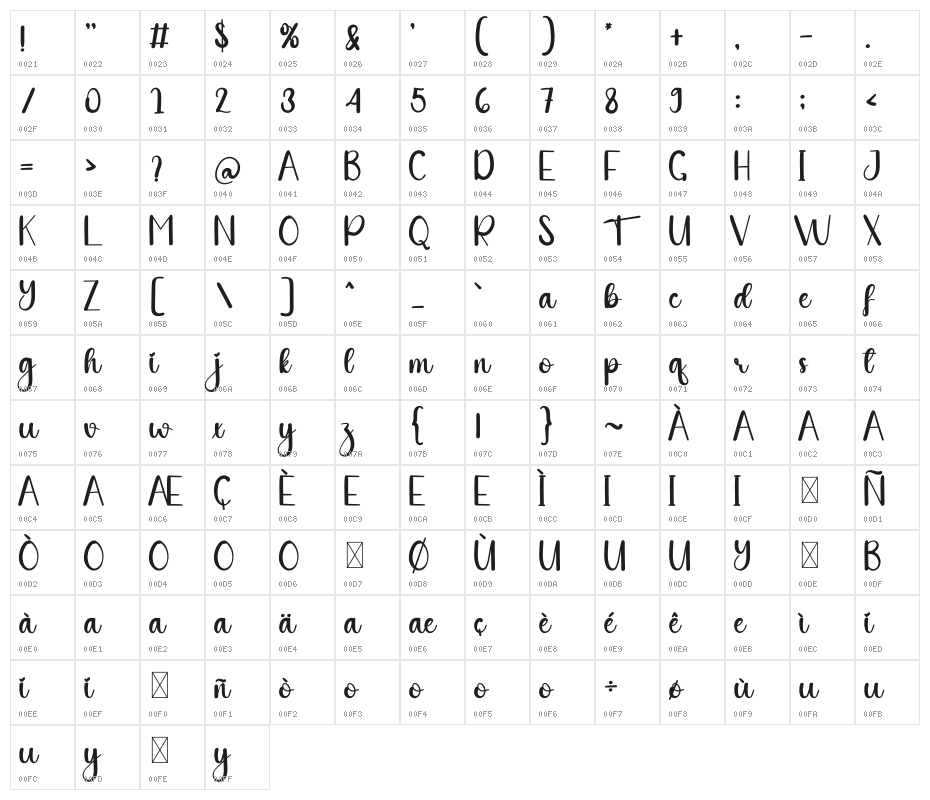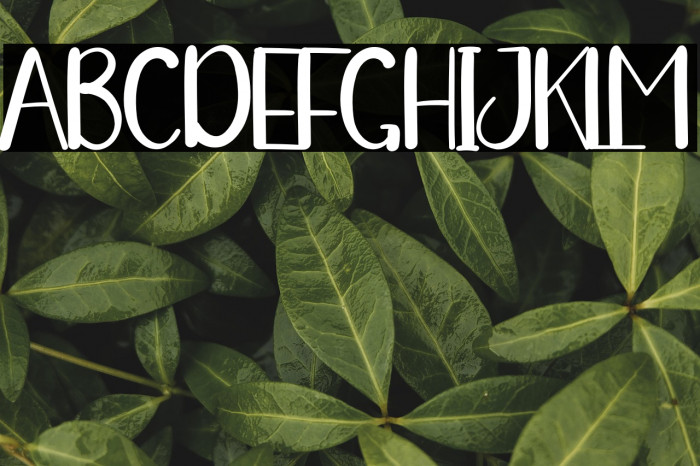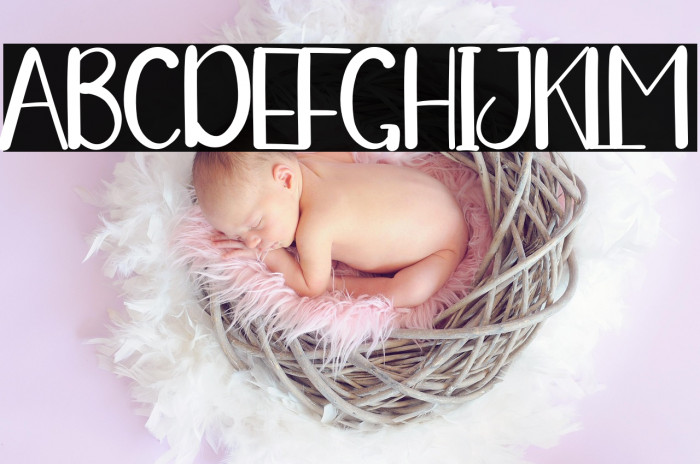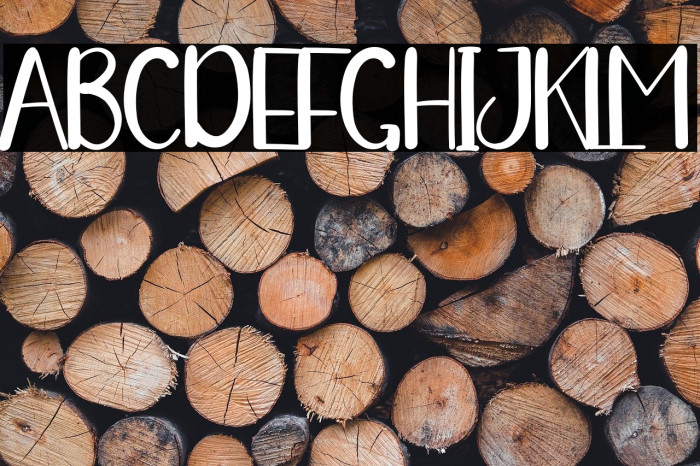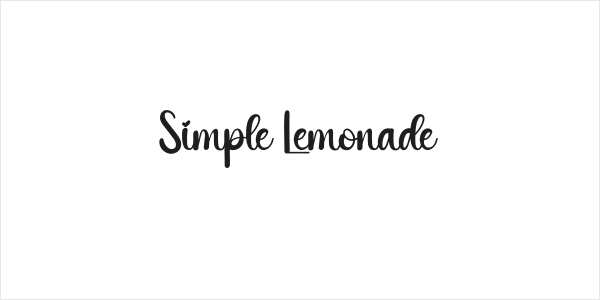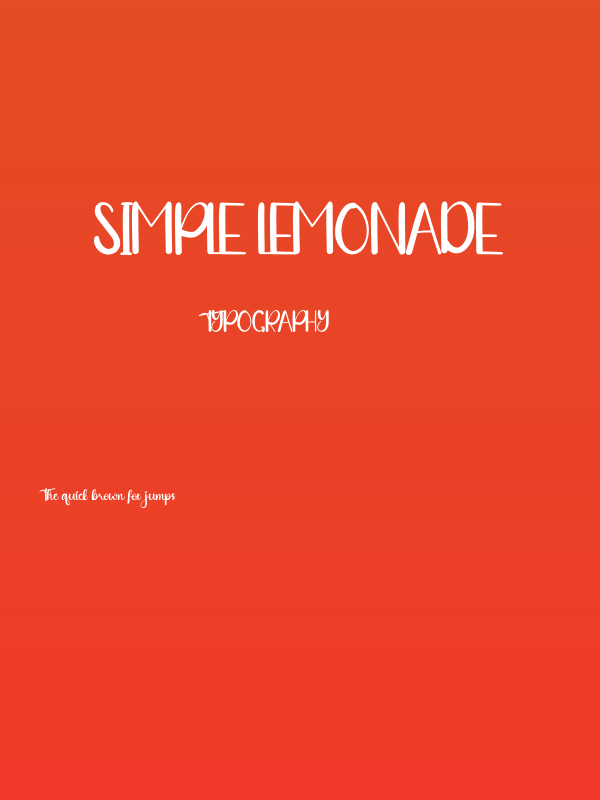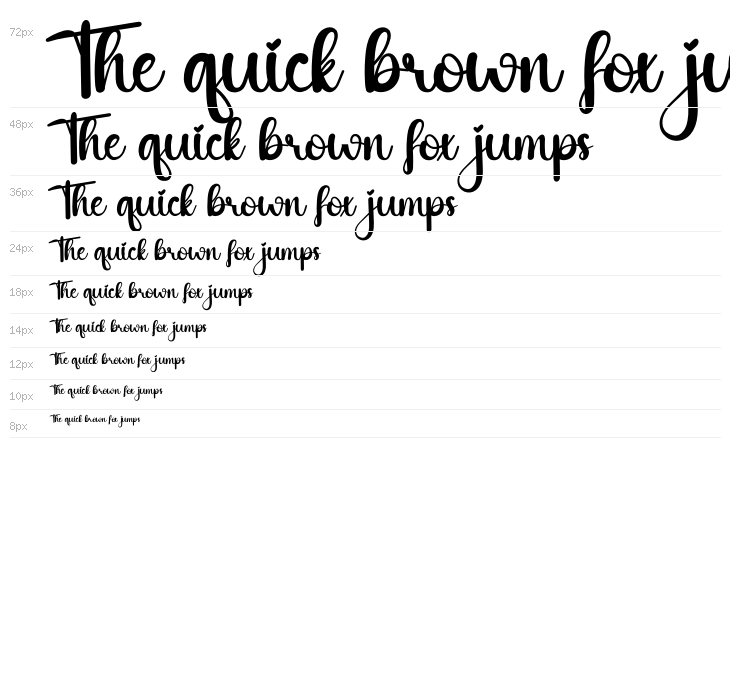
Simple Lemonade Font
Simple Lemonade Description
A playful and whimsical handwritten font with a casual, friendly appearance. The letters have a mix of thick and thin strokes, adding a dynamic feel.
| Overall Style | Casual and whimsical |
| Use Case | Logos, headlines, invitations |
| Proposed Projects | Greeting cards, invitations, playful branding. |